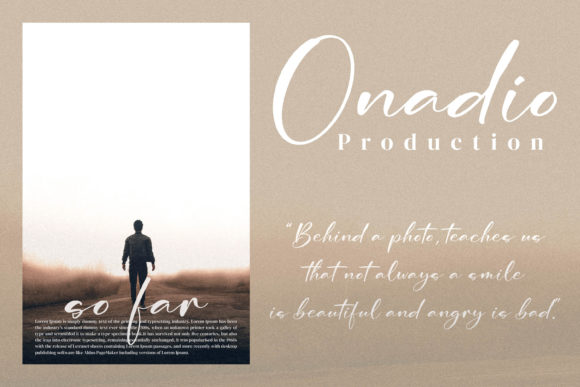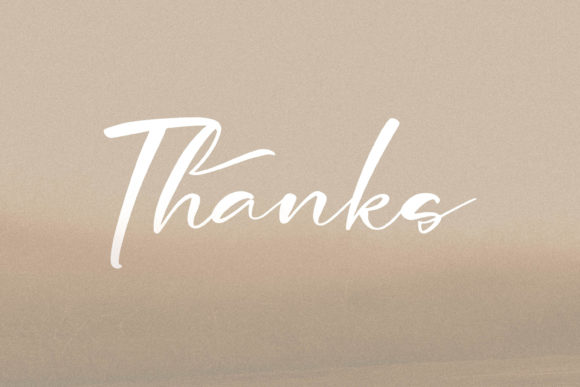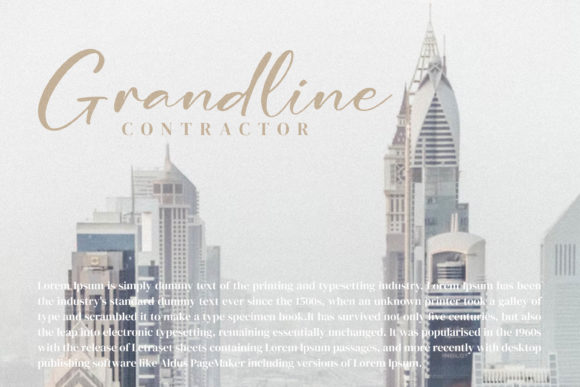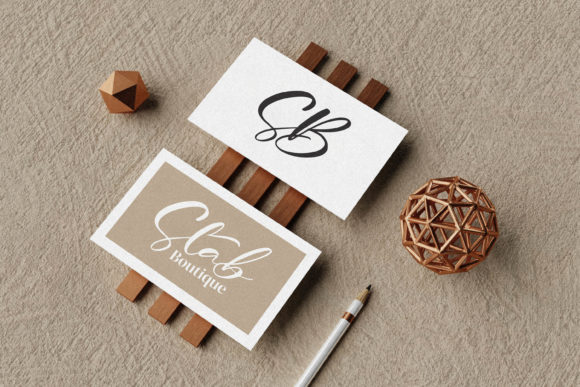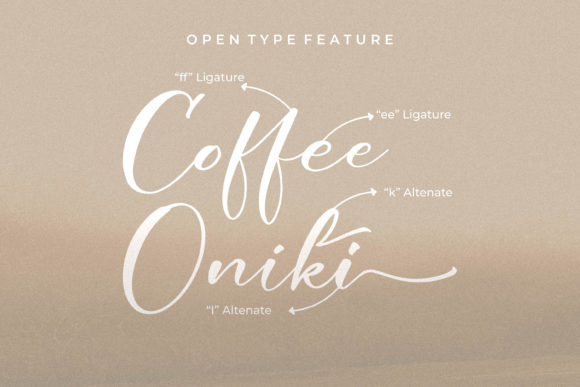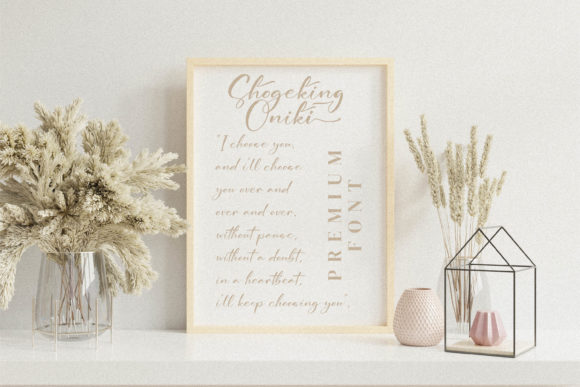
About Shogeking Oniki Font
Shogeking Oniki is a beautiful, well balanced and cursive script font. It is defined by smooth curves and is perfect for fashion branding or editorial designs. This font is PUA encoded which means you can access all of the glyphs and swashes with ease!Â